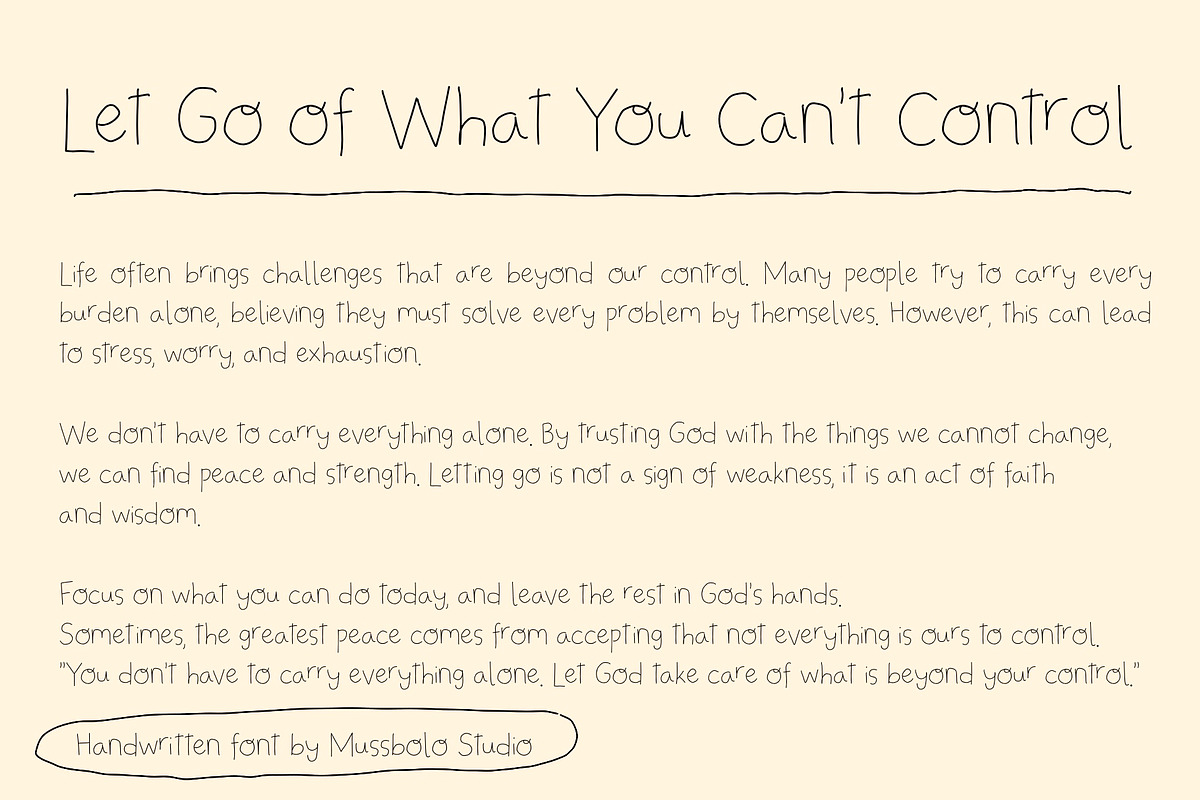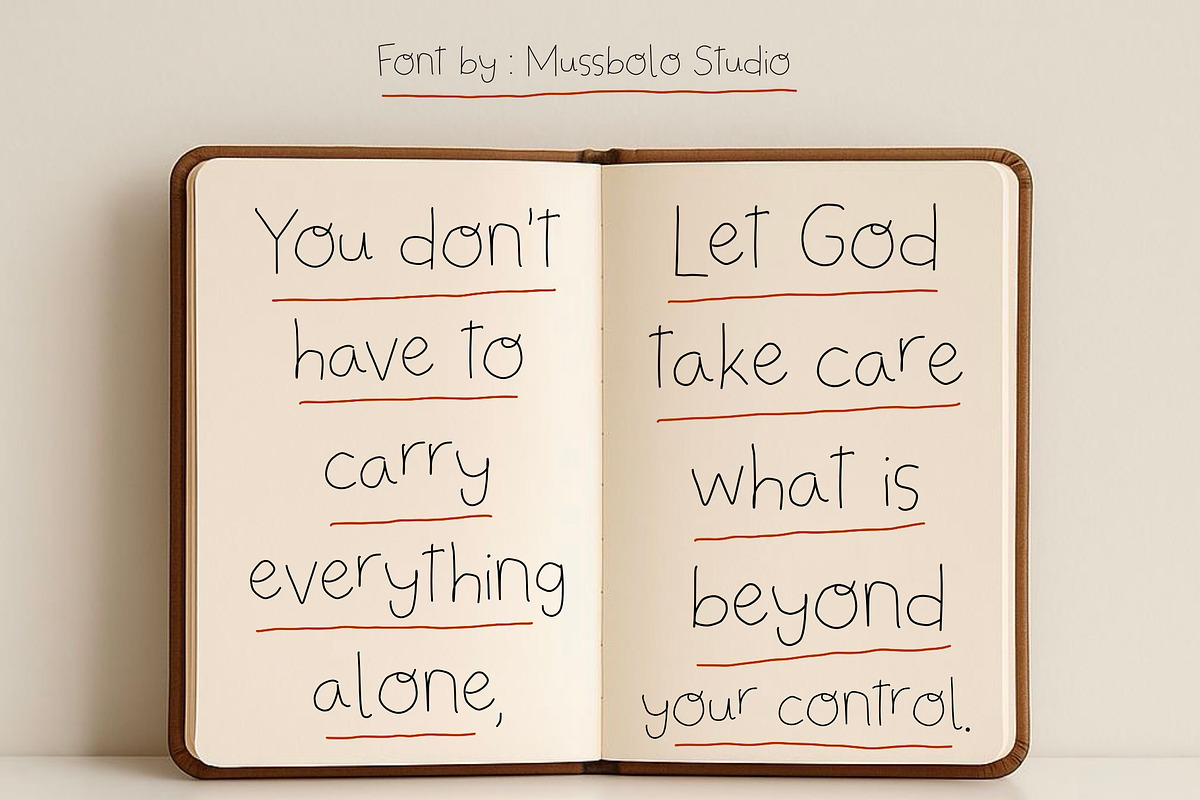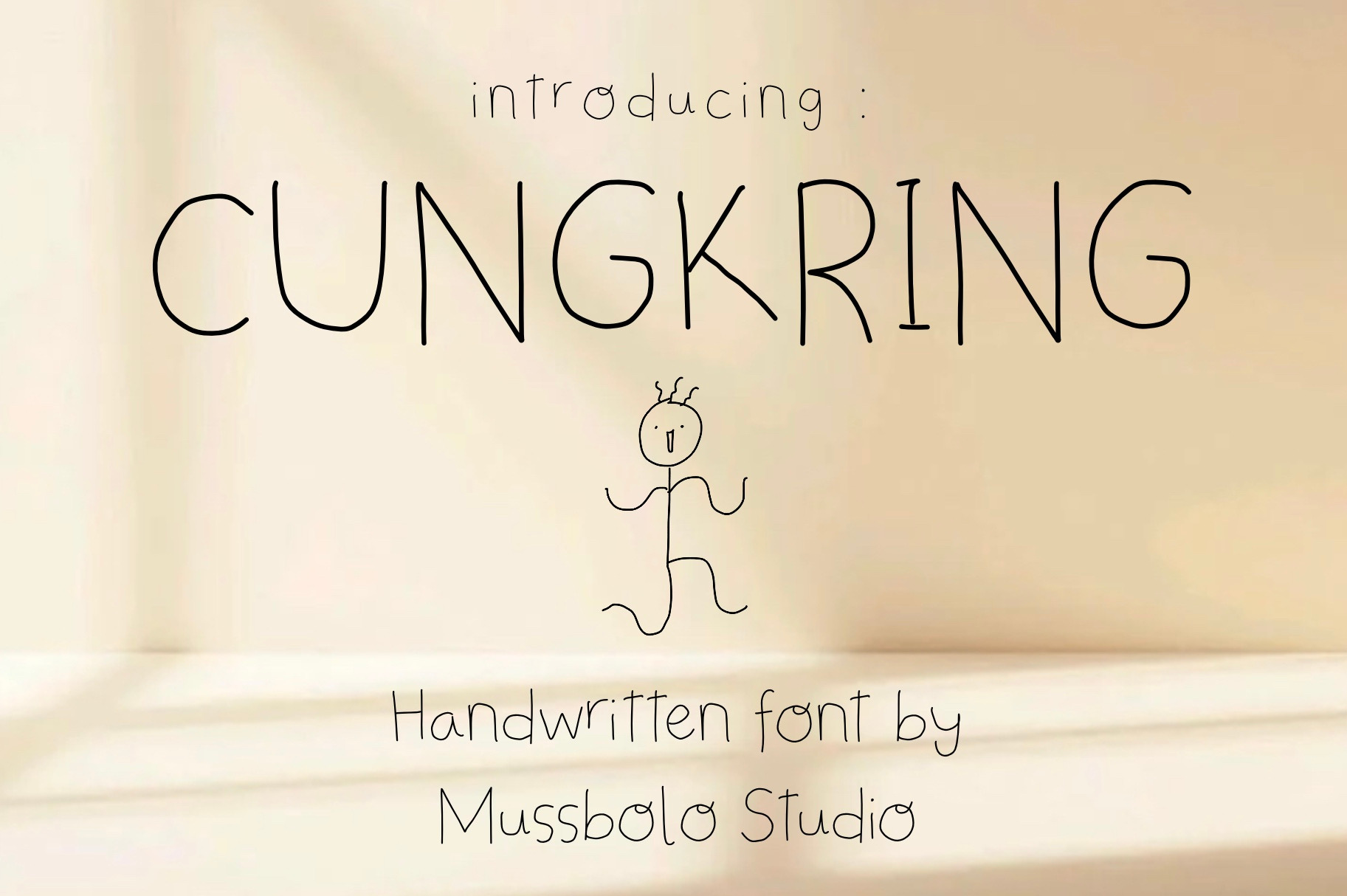
Cungkring handwritten font
Cungkring is a neat and thin handwritten font with a slim, clean, and lightweight appearance.
Uppercase & lowercase letters
Basic punctuation
Social media content/vlog/feed
Branding & logo
Packaging
Digital planners
Quotes & aesthetic posts
Invitations
Creative projects